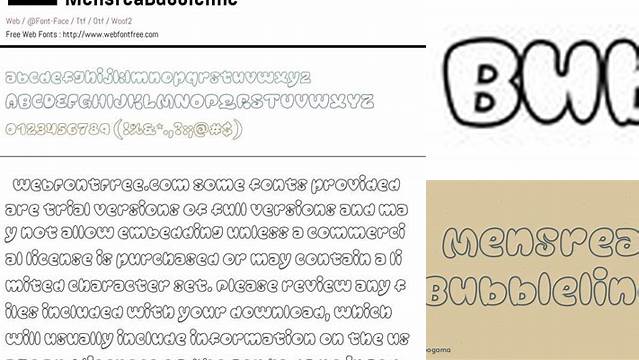
Hey guys! Ever stumbled upon a font that just screams fun and creativity? Well, let me introduce you to the Mensrea Bubbleline font! This font is like a burst of joy in the world of typography, perfect for adding a playful touch to your designs. In this guide, we're diving deep into everything you need to know about this awesome font and how you can snag it for free. So, buckle up and let's get started!
What is Mensrea Bubbleline Font?
Mensrea Bubbleline is a display font characterized by its bubbly, rounded shapes and a friendly, approachable vibe. Imagine balloons forming letters – that’s pretty much the essence of this font. It's designed to catch the eye and bring a sense of whimsy to any project. The bold lines and smooth curves make it incredibly legible, even at a distance, which is a huge plus. This font isn't just about aesthetics; it's about making a statement and injecting personality into your work. Think of it as the friendly giant of fonts, always ready to make your message pop.
Key Features of Mensrea Bubbleline
The appeal of Mensrea Bubbleline lies in its distinct characteristics. One of the most notable features is its rounded terminals, which give each letter a soft, approachable feel. This makes the font incredibly inviting, perfect for projects that aim to evoke warmth and friendliness. The consistent line weight throughout the font ensures readability, even at smaller sizes, while the overall design maintains a playful and energetic vibe. Another key feature is its versatility. While it shines in display settings, it can also be used in shorter blocks of text to add emphasis and personality. It's truly a font that balances fun and functionality, making it a valuable addition to any designer's toolkit. Understanding these key features helps you appreciate how Mensrea Bubbleline can elevate your creative projects.
Where to Use Mensrea Bubbleline Font
So, where can you actually use this fantastic font? Well, the possibilities are pretty endless! Mensrea Bubbleline is perfect for creating eye-catching headlines, especially for projects targeting a younger audience. Think about using it for posters advertising a kids' event or a school fair. It also works wonders for logos, particularly for businesses that want to project a fun, approachable image. Imagine a toy store or an ice cream parlor using this font – it instantly conveys a sense of playfulness and delight. Beyond that, Mensrea Bubbleline can be used in social media graphics, invitations, and even book covers. Its versatility makes it a great choice for any project where you want to add a touch of joy and creativity. Whether you're designing a website, creating marketing materials, or just having fun with personal projects, this font is sure to make your work stand out.
Mensrea Bubbleline Font for Logos
When it comes to logo design, the right font can make or break your brand's image. Mensrea Bubbleline offers a unique opportunity to create logos that are both memorable and approachable. Its playful design can help your brand stand out in a crowded market, especially if you're targeting a younger demographic or aiming for a friendly, informal vibe. Imagine a children's bookstore using a logo with Mensrea Bubbleline – it instantly communicates a sense of fun and imagination. However, it's important to consider your brand's overall identity. This font might not be the best fit for a serious, corporate brand, but for businesses that want to be seen as creative, fun, and accessible, it's an excellent choice. When using it for a logo, experiment with different colors and layouts to find the perfect balance. A well-designed logo with Mensrea Bubbleline can be a powerful tool for attracting customers and building brand recognition.
Using Mensrea Bubbleline in Graphic Design
In the world of graphic design, fonts are a crucial element in creating visually appealing and effective designs. Mensrea Bubbleline can be a fantastic asset in your toolkit, especially when you want to add a playful and engaging touch. Think about using it in posters, flyers, and social media graphics to capture attention and convey a sense of fun. Its rounded shapes and bold lines make it highly readable, even from a distance, which is essential for grabbing people's attention. Experiment with different colors and backgrounds to see how Mensrea Bubbleline interacts with other design elements. Pair it with bright, vibrant colors for a youthful look, or use it with softer, pastel tones for a more gentle and whimsical feel. Just remember to use it strategically and in moderation. Overusing any font can diminish its impact, so choose the right moments to let Mensrea Bubbleline shine and elevate your designs.
Mensrea Bubbleline Font Pairing Ideas
Choosing the right font pairing can significantly enhance the overall aesthetic of your design. While Mensrea Bubbleline is a standout font on its own, pairing it with complementary fonts can create a more balanced and visually appealing composition. For body text, consider pairing it with a clean and simple sans-serif font like Open Sans or Lato. These fonts provide a neutral backdrop that allows Mensrea Bubbleline to take center stage without overwhelming the design. Another option is to pair it with a more traditional serif font like Merriweather or Lora for a classic yet playful contrast. The key is to choose fonts that complement Mensrea Bubbleline without competing with it. Experiment with different font sizes and weights to find the perfect harmony. A well-chosen font pairing can elevate your design and make your message even more impactful.
Mensrea Bubbleline Font for Web Design
When it comes to web design, choosing the right fonts is crucial for creating a visually appealing and user-friendly experience. Mensrea Bubbleline can be a great choice for adding personality and flair to your website, especially if you're targeting a younger audience or aiming for a fun, informal vibe. Think about using it for headings, titles, and call-to-action buttons to grab visitors' attention and make your website more memorable. However, it's important to use it sparingly and strategically. Overusing display fonts like Mensrea Bubbleline can slow down your website's loading time and make it harder to read. Pair it with a clean and readable sans-serif font for body text to ensure a comfortable reading experience. Also, consider using CSS to optimize the font for different screen sizes and devices. A well-designed website with Mensrea Bubbleline can be a powerful tool for attracting visitors and conveying your brand's unique personality.
Mensrea Bubbleline Font in Print vs. Digital Media
Fonts can behave differently in print versus digital media. Mensrea Bubbleline, like any font, may require adjustments depending on whether it's being used for print or digital designs. In print, it's important to ensure that the font is crisp and clear, with no pixelation or blurring. In digital media, it's important to optimize the font for different screen sizes and resolutions. Consider using CSS to adjust the font's rendering on different devices. Also, be mindful of the font's loading time on websites and mobile apps. By considering the differences between print and digital media, you can ensure that Mensrea Bubbleline looks its best in any context.